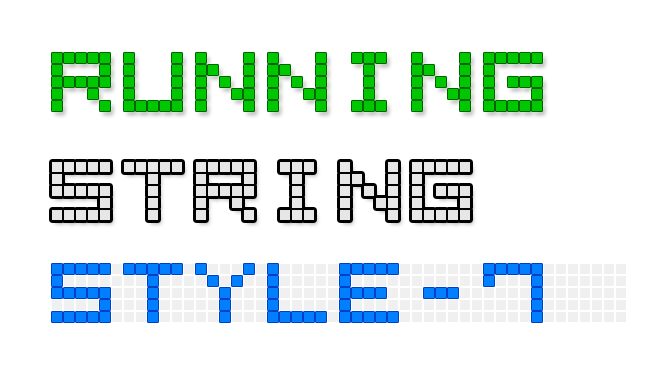
LED Display7 by Style-7 is a free digital display font modeled on classic LED signs and scoreboards. Its tall, squared capitals have broad proportions and a steady mechanical beat. Even rounded forms remain crisp, with carefully placed gaps keeping the dark silhouettes open.
Indicator-light patterns and control-panel graphics share the font's regular spacing and squared geometry, a useful connection for game interfaces, event posters, and technology branding. On electronic-music covers and gadget packaging, the letters can become part of a larger illuminated display rather than sitting apart from the artwork.
LED Display7